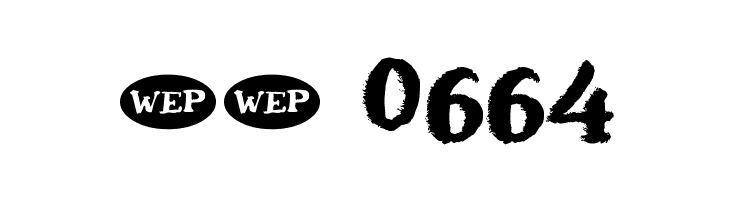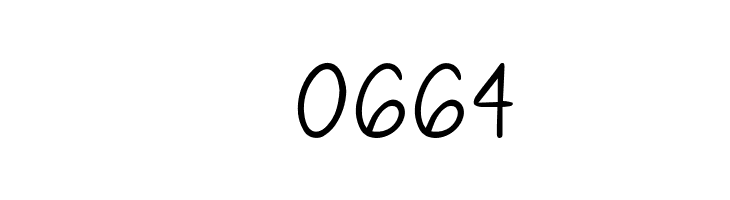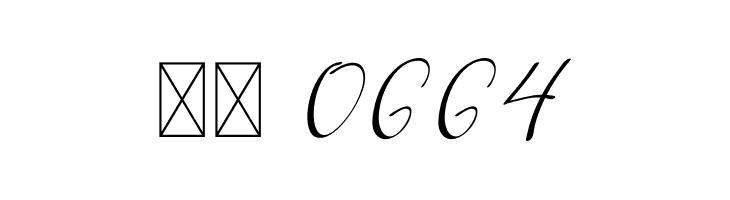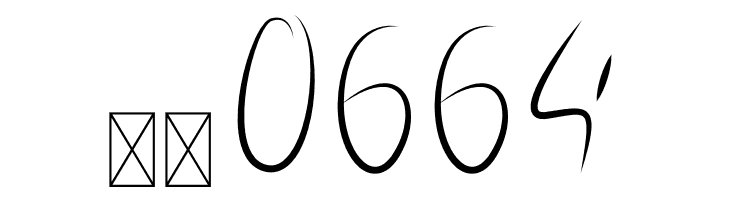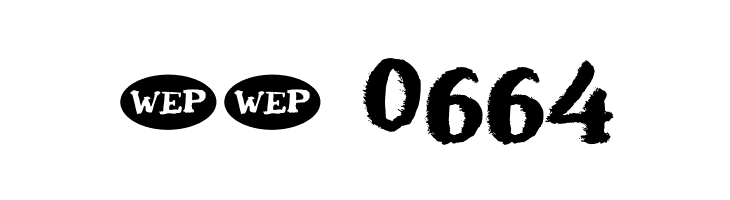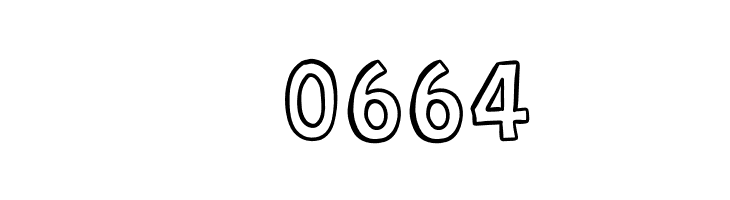
( FancyFrenzy - Francy van Lierop )
A bold, expressive font with a hand-drawn, energetic style.
( Fonts by RaisProject )
A bold, angular font with a modern and edgy style.
A graceful, flowing script font with a handwritten style.
( Font by Jonathan Harris - www.tattoowoo.com )
A bold, geometric font with a modern and decorative style.
( Fonts by Jonathan S. Harris )
A dynamic, handwritten-style font with expressive, elongated characters.
A playful, bold, hand-drawn font with thick outlines and a cartoonish style.
A dynamic and expressive handwritten font with fluid, cursive strokes.
A bold, expressive brush-style font with a dynamic, hand-painted look.
A bold, brush-style font with dynamic, textured strokes.
A bold, distressed font with a rugged, textured appearance.
( Xerographer Fonts - Max Infeld - xerographer.blogspot.com )
A bold, geometric font with strong, angular shapes and a modern aesthetic.
( Xerographer Fonts - Max Infeld - xerographer.blogspot.com )
A bold, geometric font with a modern and assertive style.
( Xerographer Fonts - Max Infeld - xerographer.blogspot.com )
A bold, geometric font with angular, striking characters.
( Xerographer Fonts - Max Infeld - xerographer.blogspot.com )
A bold, hollow, geometric font with a modern aesthetic.
( Xerographer Fonts - Max Infeld - xerographer.blogspot.com )
A bold, geometric font with a modern and assertive style.
( Xerographer Fonts - Max Infeld - xerographer.blogspot.com )
A bold, italic font with a modern and dynamic style.
( Xerographer Fonts - Max Infeld - xerographer.blogspot.com )
A bold, italic font with a modern, dynamic style.
( Xerographer Fonts - Max Infeld - xerographer.blogspot.com )
A bold, geometric font with a narrow width and modern appeal.
( Xerographer Fonts - Max Infeld - xerographer.blogspot.com )
A bold, geometric font with sharp angles and clean lines.
A playful, casual handwritten font with smooth, rounded edges.
A bold, brushstroke font with a textured, artistic style.
A modern, geometric font with clean, rounded edges and consistent stroke width.
A bold, hand-drawn font with a textured, distressed look.
A bold, high-contrast serif font with elegant curves and a classic style.
A bold, high-contrast serif font with elegant and dramatic strokes.
A bold, brush-style font with dynamic and expressive strokes.
( Fonts by www.tepidmonkey.net )
A playful, hand-drawn font with a whimsical and informal style.
( Fonts by www.tepidmonkey.net )
A bold, playful font with a hand-drawn, informal style.
( Fonts by www.tepidmonkey.net )
A bold and italicized font with dynamic, sharply angled characters.
( Fonts by www.tepidmonkey.net )
A dynamic italic font with smooth, flowing curves and a modern, expressive style.
An elegant script font with fluid, cursive strokes and sophisticated style.